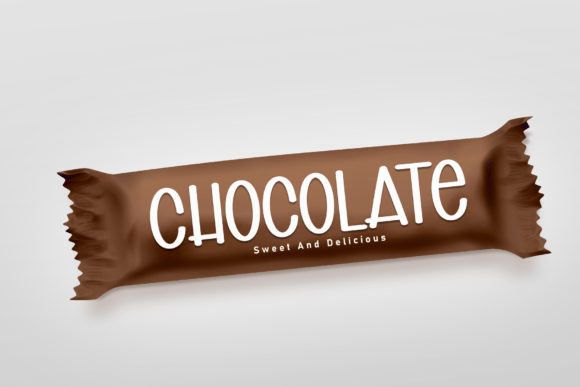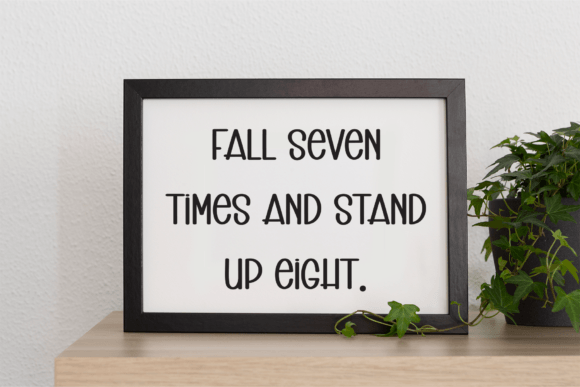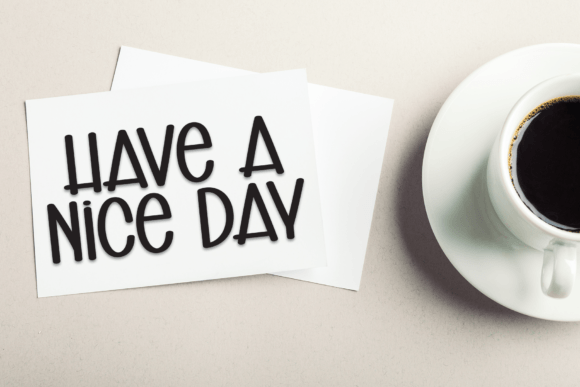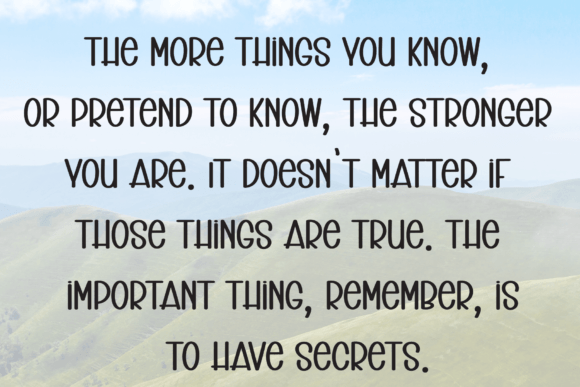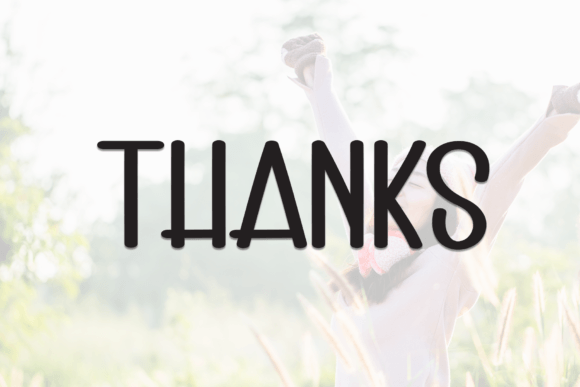
Introducing Happy Moment Font: The Sweet and Friendly Handwritten Font for Your Designs
Are you looking for a font that can add a touch of sweetness and friendliness to your designs? Look no further than Happy Moment Font! This beautiful handwritten font is perfect for creating wedding invitations, cards, and other designs that require a fun and playful touch. In this article, we’ll take a closer look at Happy Moment Font and explore its features, benefits, and uses.
What is Happy Moment Font?
Happy Moment Font is a sweet and friendly handwritten font that is designed to bring a smile to your face. Its cute and fun design makes it ideal for a wide range of creative projects, from wedding invitations and cards to social media graphics and blog posts. This font is perfect for designers and crafters who want to add a personal touch to their work and make it more engaging and memorable.
Key Features of Happy Moment Font
So, what makes Happy Moment Font so special? Here are some of its key features:
- Handwritten design: Happy Moment Font has a beautiful handwritten design that gives it a personal and friendly feel.
- Cute and fun: This font is designed to be cute and fun, making it perfect for designs that require a playful touch.
- Versatile: Happy Moment Font can be used for a wide range of creative projects, from wedding invitations and cards to social media graphics and blog posts.
- Easily readable: This font is designed to be easily readable, even at small sizes, making it perfect for use in a variety of contexts.
Benefits of Using Happy Moment Font
So, why should you use Happy Moment Font in your designs? Here are some of the benefits of using this font:
- Adds a personal touch: Happy Moment Font adds a personal touch to your designs, making them more engaging and memorable.
- Perfect for wedding and event designs: This font is ideal for wedding invitations, cards, and other event designs that require a sweet and friendly touch.
- Great for social media graphics: Happy Moment Font is perfect for social media graphics, blog posts, and other online content that requires a fun and playful touch.
Uses of Happy Moment Font
So, what can you use Happy Moment Font for? Here are some ideas:
- Wedding invitations: Happy Moment Font is perfect for wedding invitations, save-the-date cards, and other wedding-related designs.
- Cards and gift tags: This font is great for creating cards, gift tags, and other paper crafts that require a personal touch.
- Social media graphics: Happy Moment Font is perfect for social media graphics, blog posts, and other online content that requires a fun and playful touch.
- Party decorations: This font can be used to create party decorations, such as banners, garlands, and other DIY projects.
Tips for Using Happy Moment Font
Here are some tips for using Happy Moment Font in your designs:
- Use it with other fonts: Happy Moment Font can be paired with other fonts to create a unique and interesting design.
- Experiment with colors: This font looks great in a variety of colors, so don’t be afraid to experiment and find the perfect color for your design.
- Use it in combination with images: Happy Moment Font can be used in combination with images to create a beautiful and eye-catching design.
In conclusion, Happy Moment Font is a sweet and friendly handwritten font that is perfect for adding a personal touch to your designs. Its cute and fun design makes it ideal for wedding invitations, cards, and other designs that require a playful touch. With its versatility, ease of use, and range of benefits, Happy Moment Font is a great addition to any designer’s toolkit.
Whether you’re a designer, crafter, or DIY enthusiast, Happy Moment Font is a great choice for any project that requires a personal and friendly touch. So why not give it a try and see how it can enhance your designs?